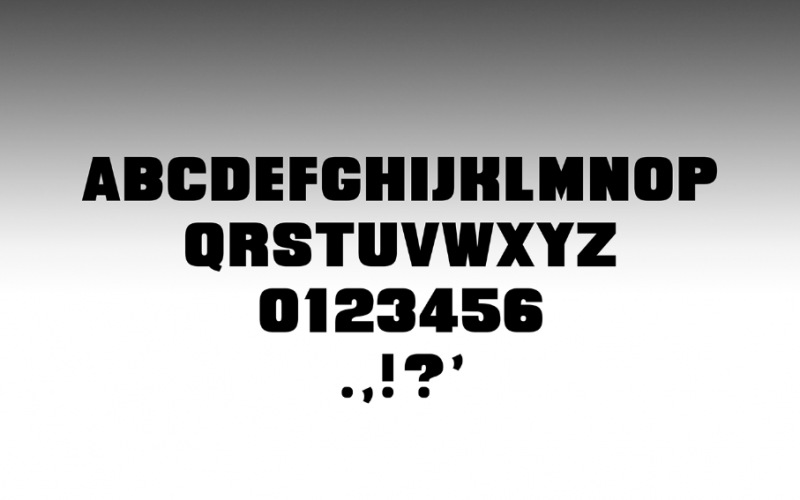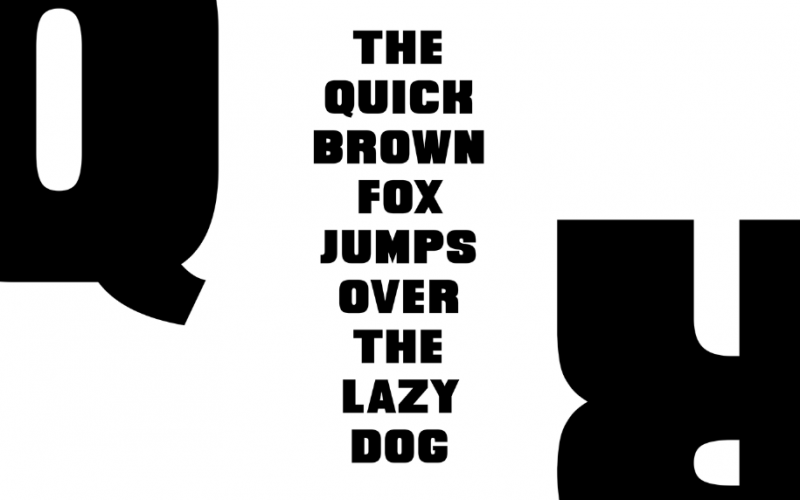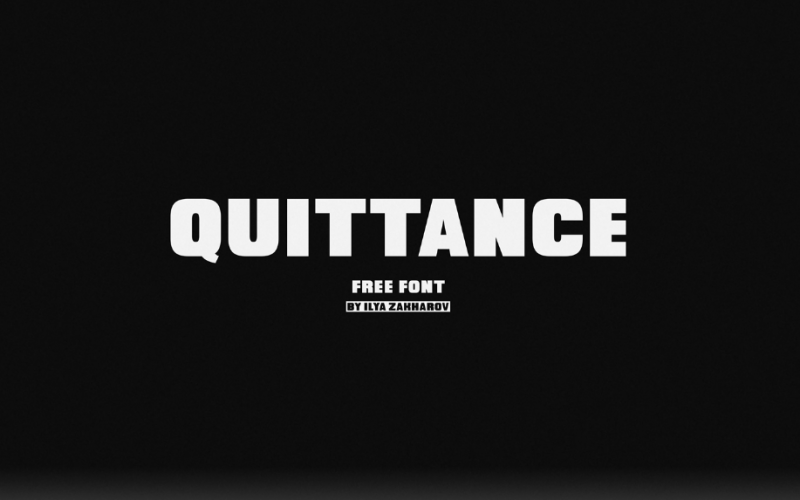
Quittance Typeface
A tall condensed sans serif font. If you are looking for letters with attitude, Quittance Font is the perfect fit. It’s a memorable, strong and elegant typeface. You can mix and match the Outline and the Regular style to create something very fresh and modern.
This font are perfect for wedding invitation or your blog. Also with their help, you can create a logo or beautiful frame for your home. Or just use for your small business, book covers, stationery, marketing, magazines and more.